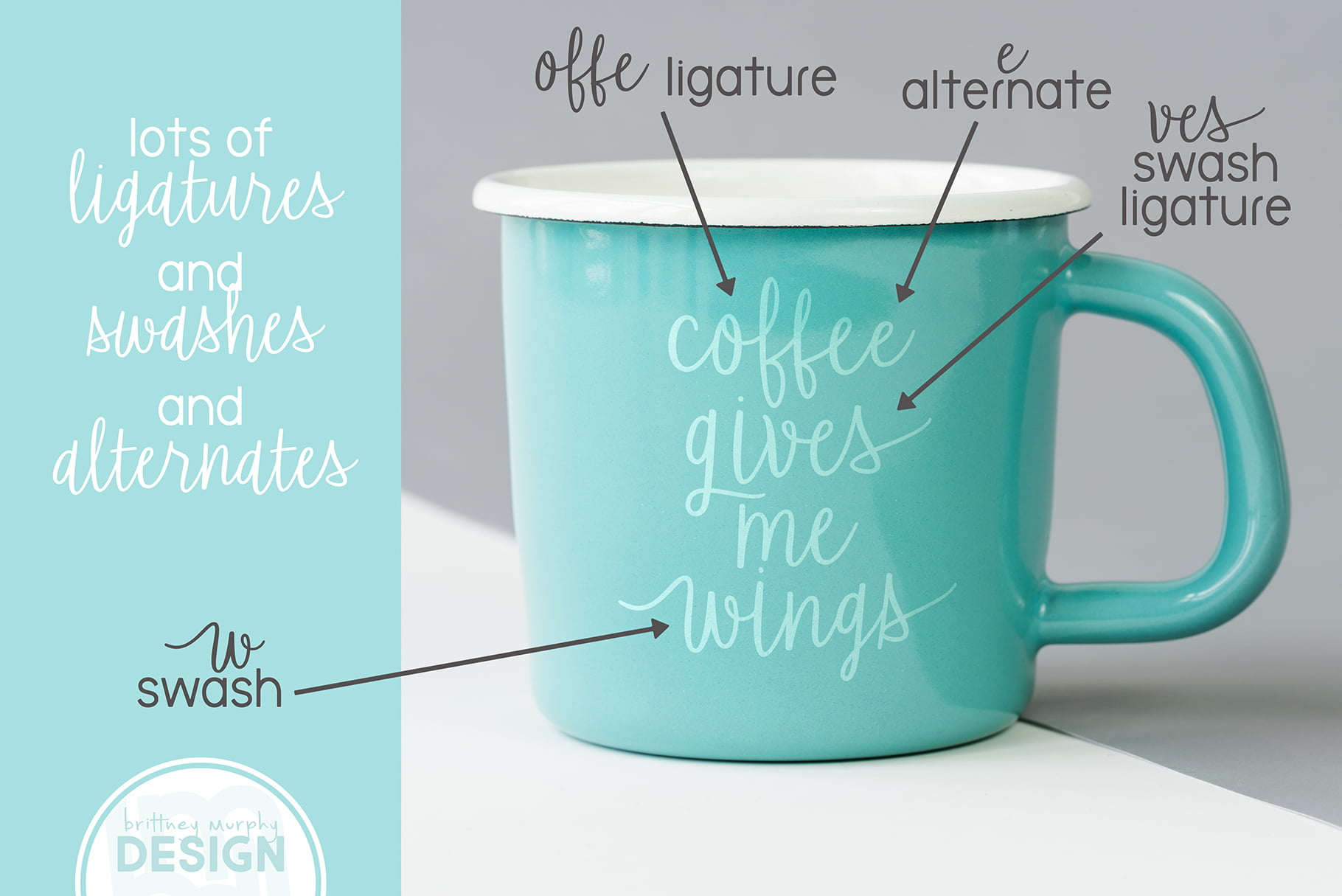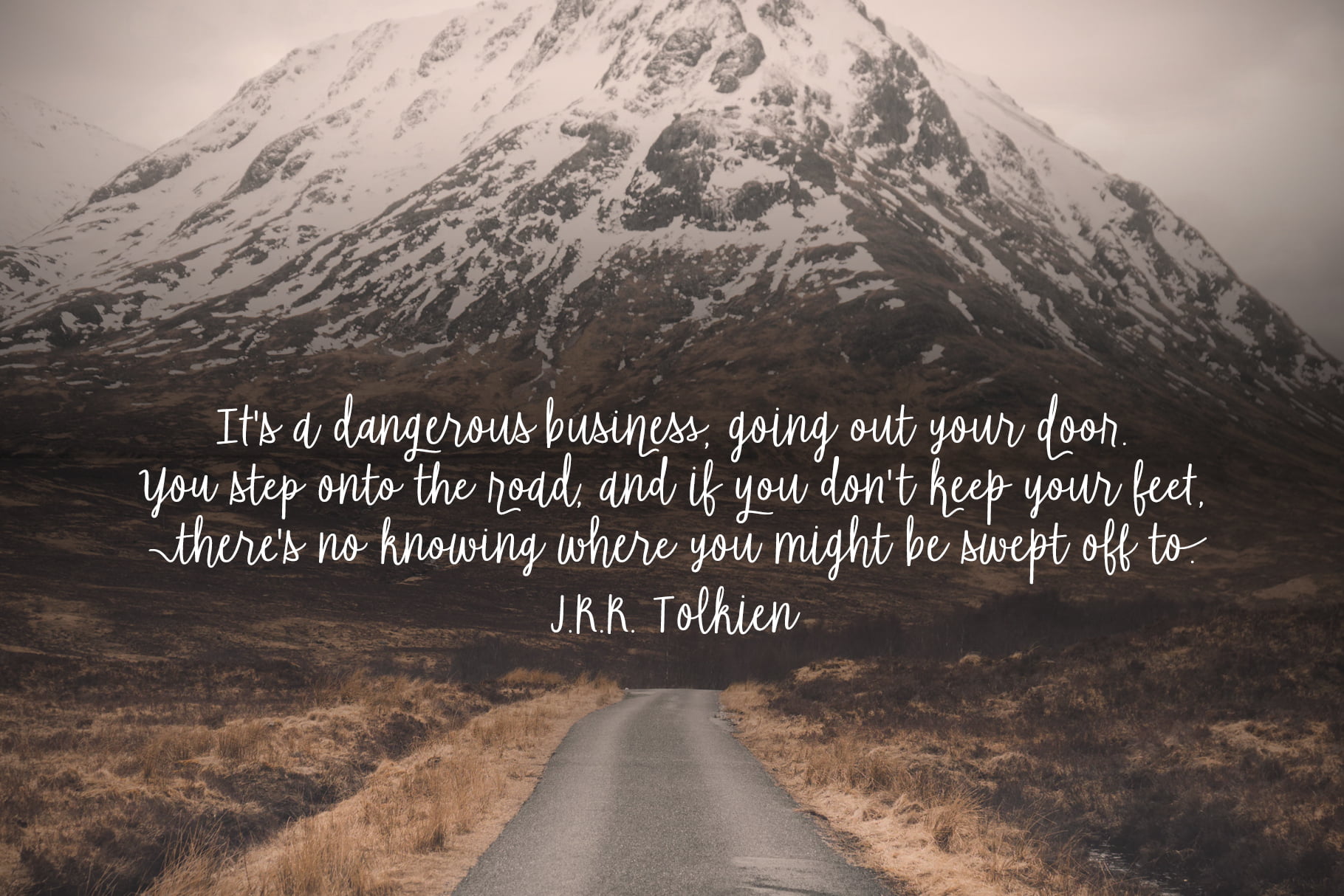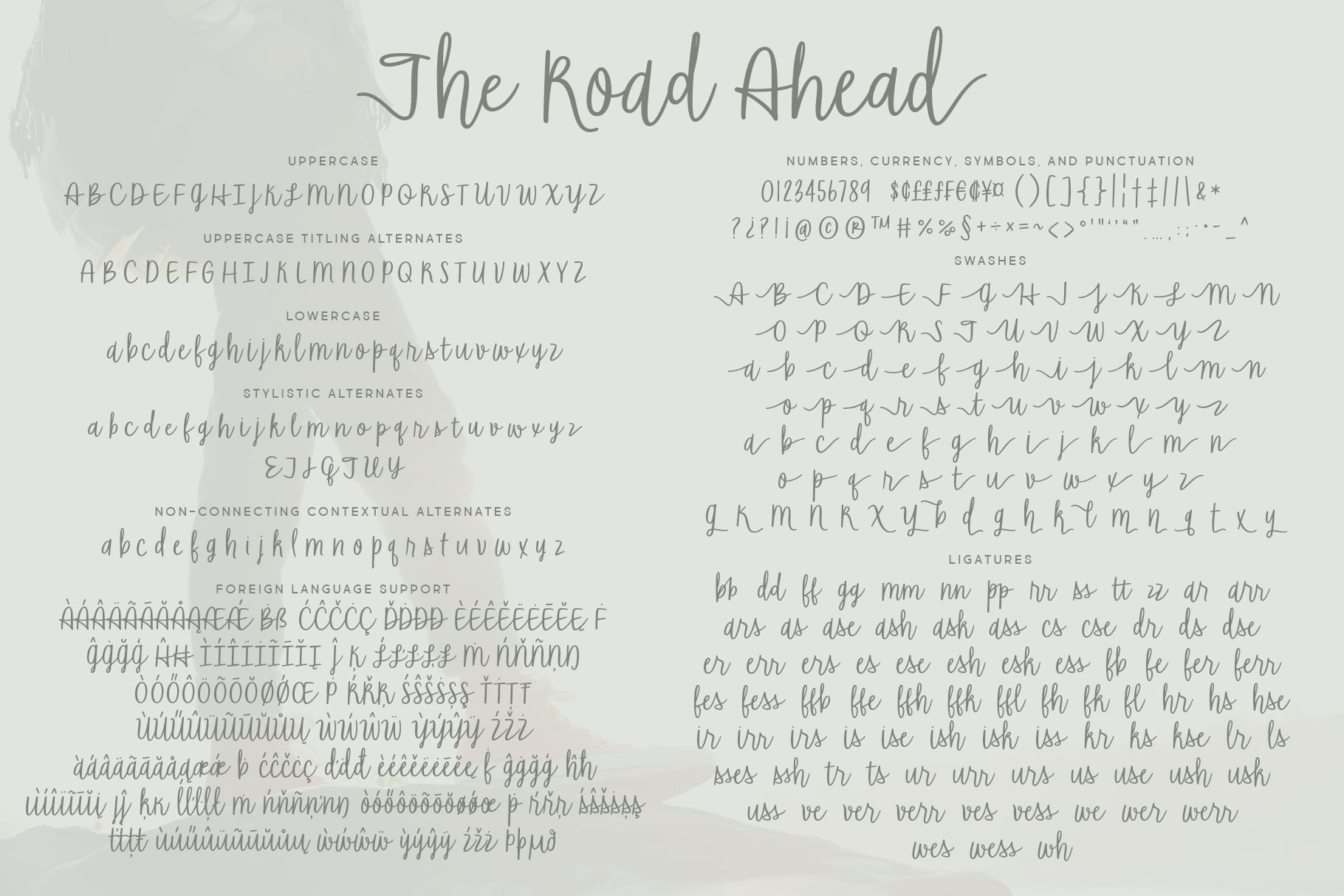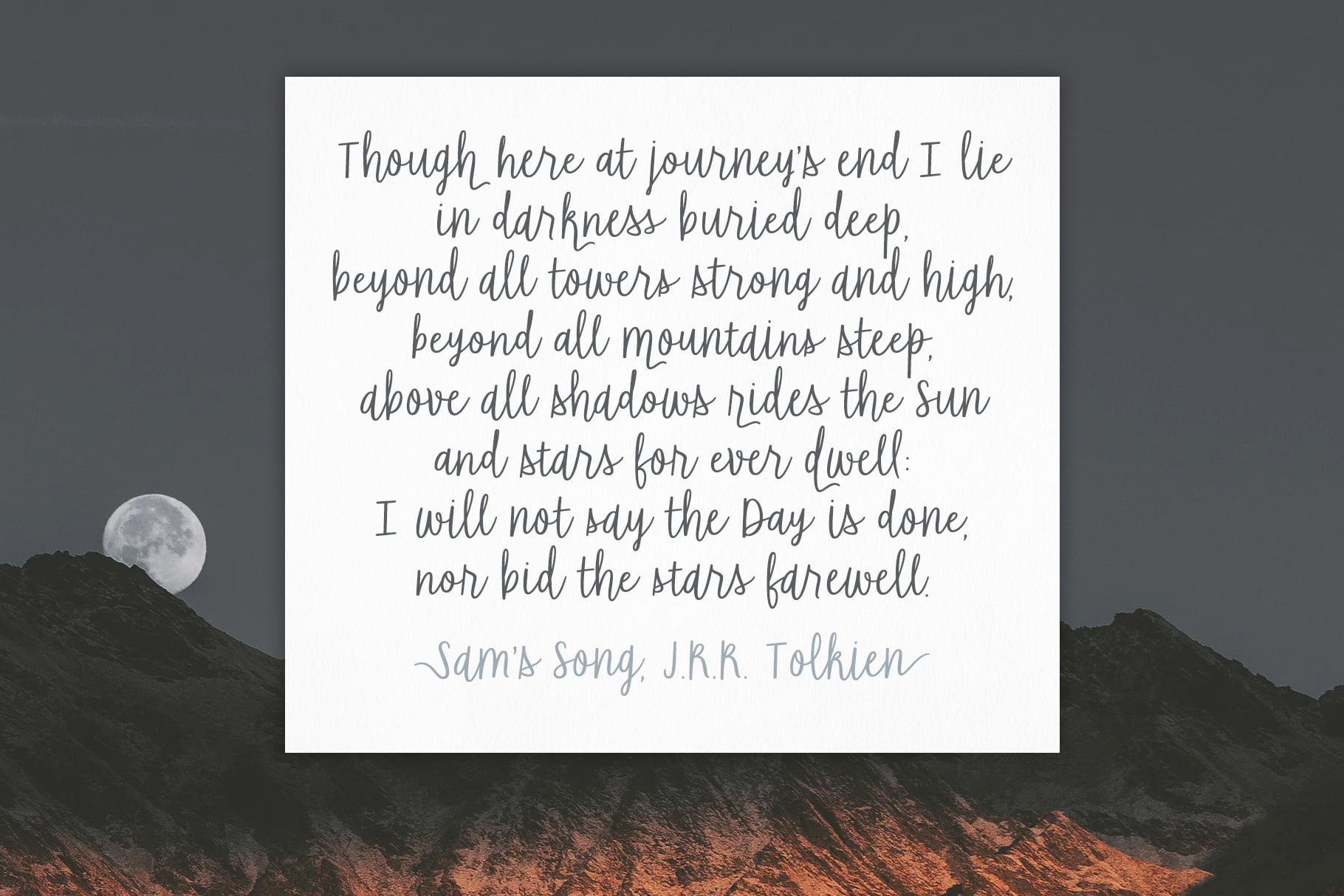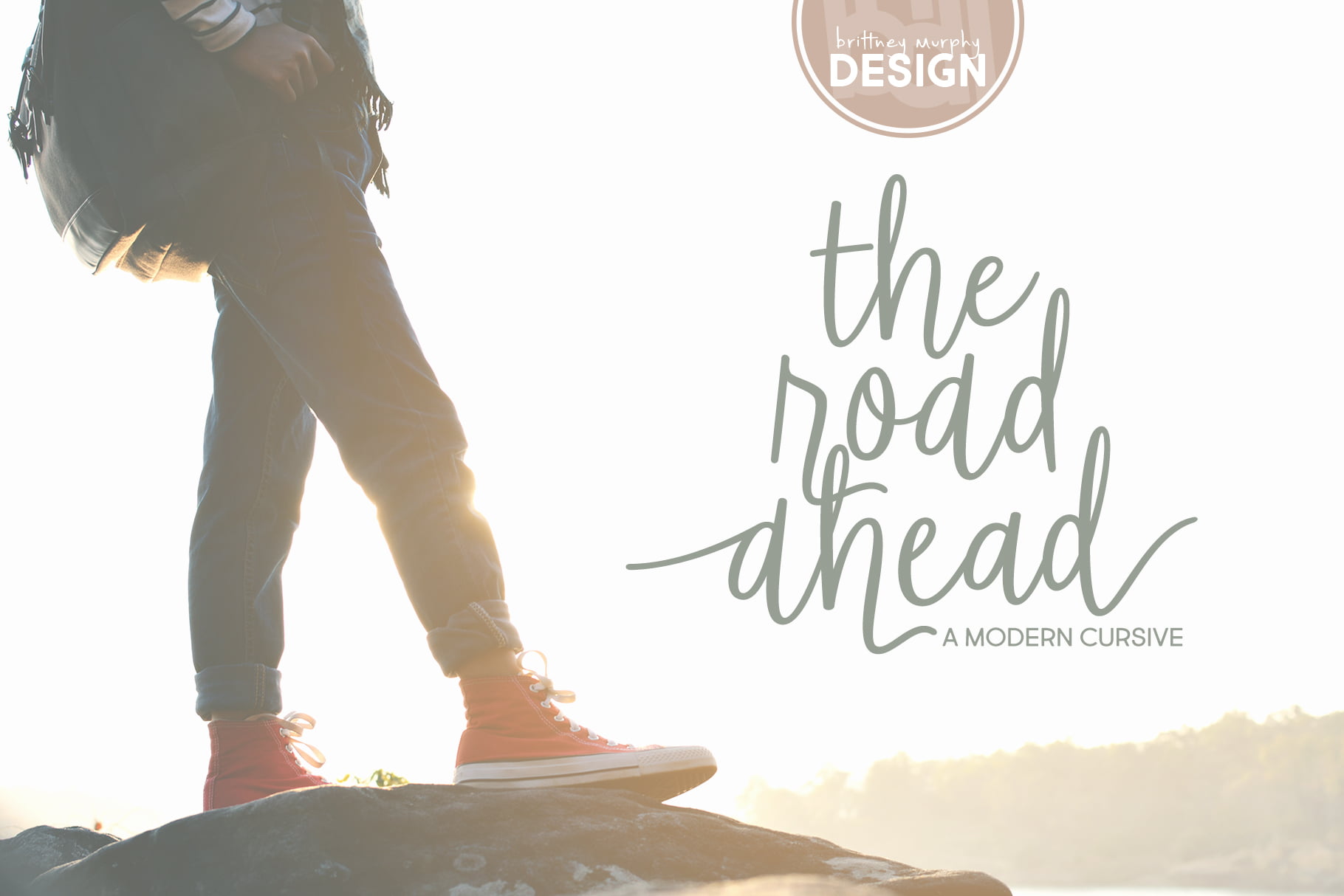
The Road Ahead
The Road Ahead is an adventurous modern cursive font. It’s packed with open-type goodies: ligatures, alternates and swashes! Mix and match letter styles to create and custom look!